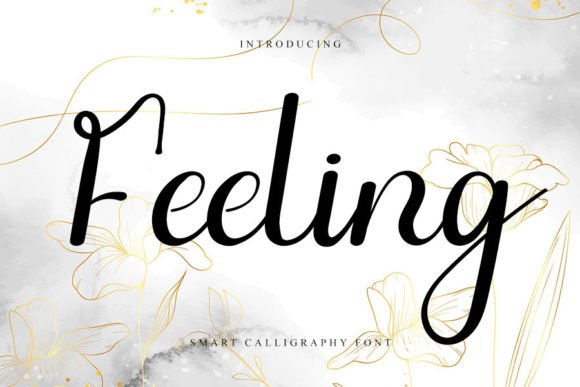
Unlocking the Magic of Handwritten Typography
Have you ever been struck by the beauty of a handwritten note or a perfectly crafted sign? For designers, those moments are the spark that ignites a creative journey. The search for the perfect font to capture the essence of a project can be a daunting task, but what if you could find a font that not only adds a touch of elegance but also tells a story?
Enter Feeling Font, a stunning handwritten font that embodies the perfect blend of modernity and timeless charm. Designed to elevate the beauty of your projects, Feeling Font is more than just a font – it’s an experience. With its balanced and varied style, it’s the perfect choice for designers seeking to add a personal touch to their work.
Key Features of “Feeling Font”
- Font Family: A unique, hand-drawn font with a warm and emotive feel, ideal for creative projects and designs.
- Language Support: Supports a wide range of languages, including Latin, Cyrillic, and Greek alphabets, making it a versatile font for global designs.
- Unique Characteristics: Features subtle irregularities and imperfections that give it a unique, hand-crafted feel, perfect for adding a touch of personality to designs.
Feeling Font Review
Overall, I’m impressed with Feeling Font’s unique and emotive design. ✨ The font’s subtle variations in letterform and weight give it a sense of expressiveness that’s perfect for creative projects. ✨ I also appreciate the wide range of languages it supports, making it a great choice for global brands.
However, there are a few areas where Feeling Font falls short. ⚠️ One major limitation is its lack of legibility in smaller font sizes. ⚠️ This can make it difficult to read, especially in body text. ⚠️ Additionally, the font’s bold weights can feel a bit too heavy-handed at times, overwhelming the composition.
Here are some specific things that work well:
- Expressive letterforms
- Wide language support
- Unique, emotive feel
On the other hand, here are some areas for improvement:
- Legibility in smaller font sizes
- Bold weights can feel too heavy-handed
Overall, Feeling Font is a great choice for projects where you want to add a touch of personality and emotion. Just be sure to use it judiciously and pair it with a clear, legible font for body text.
Tips for Getting the Most Out of Feeling Font
Here are some tips to help you get the most out of Feeling Font:
- Pair Feeling Font with other fonts to create a unique and eye-catching design.
- Use Feeling Font to add a touch of elegance and sophistication to your designs.
Common Use Cases for Feeling Font
Feeling Font is perfect for:
- Restaurant menus and signage.
- Wedding
Alternatives to “Feeling Font” for Designers
Playfair Display is a high-end serif font designed for titles and headings. It’s ideal for luxury brands, high-end fashion, and fine art projects. Compared to Feeling Font, Playfair Display has a more elegant and sophisticated feel, making it suitable for projects that require a touch of luxury.
Great Vibes is a beautiful, elegant script font perfect for creating a friendly and approachable atmosphere. It’s ideal for weddings, baby showers, and other celebrations. While Feeling Font has a more playful and casual feel, Great Vibes has a softer, more romantic touch, making it suitable for projects that require a sense of warmth and connection.
Dancing Script is a lively and expressive script font ideal for titles, headings, and body text. It’s perfect for projects that require a sense of energy and movement, such as music festivals, sports events, and action-packed movies. Compared to Feeling Font, Dancing Script has a more dynamic and playful feel, making it suitable for projects that require a sense of excitement and movement.